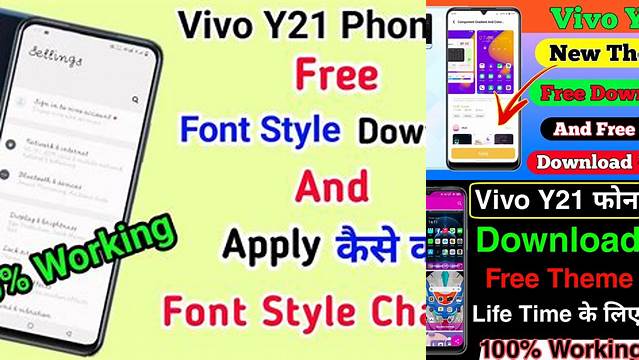
Get Free Fonts For Your Vivo Y21: Download & Customize!
Hey guys! Let's dive into the awesome world of customizing your Vivo Y21 with some cool new fonts. If you're like me, you probably get a little bored with the default font after a while. Luckily, it's super easy to jazz things up and find a vivo y21 font style free download that perfectly matches your vibe. We're going to cover everything – from where to snag those fonts to how to install them and make your phone look totally unique. Ready to make your Vivo Y21 stand out? Let's get started!
1. Unveiling the World of Vivo Y21 Font Customization
So, first things first: why bother with font customization? Well, for starters, it's all about personal expression. Your phone is an extension of you, right? And the font is a huge part of that visual identity. When you find a vivo y21 font style free download that you love, it changes the whole feel of your device. It's like giving your phone a fresh new wardrobe! Plus, it can make your device more enjoyable to use. Imagine reading your texts or browsing the web with a font that's easy on the eyes and reflects your style. It can really transform your everyday experience with your Vivo Y21. Beyond aesthetics, font customization can also improve readability. Some fonts are just inherently easier to read than others, and this can be especially helpful for users with visual impairments. By choosing the right font, you can make your device more accessible and user-friendly. The best part? The ability to find a vivo y21 font style free download opens up a world of possibilities, allowing you to explore different styles, sizes, and weights to achieve your desired look. There are so many fonts available, from sleek and modern to quirky and playful. You can find fonts that reflect your personality, interests, and even your mood. It's all about creating a digital space that truly feels like your own, making your Vivo Y21 a personalized extension of you. This level of personalization isn't just about the font itself; it extends to how you interact with your phone. A well-chosen font enhances the overall user experience, making it feel more intuitive and enjoyable. Furthermore, regular font updates can prevent the feeling of monotony that can arise from consistent viewing of the same design. So, are you ready to dive into a vivo y21 font style free download?
3.1 Using Third-Party Apps for Font Installation
One of the most common and easiest ways to install that vivo y21 font style free download is by using a third-party app. There are tons of font customization apps available in the Google Play Store, and they're generally pretty user-friendly. These apps usually provide a library of fonts that you can download and apply directly to your Vivo Y21. To get started, search for a font app in the Google Play Store. Look for apps with good reviews and ratings. Once you've found an app, download and install it. Then, open the app and follow the instructions. Most apps will guide you through the process step-by-step. The app will usually ask you for permission to access certain settings on your phone. Make sure you grant the app the necessary permissions so it can change the font. You'll likely be able to browse through a selection of fonts within the app. When you find a font you like, you can usually download and install it directly from the app. After installing the font, the app might ask you to apply it. This typically involves selecting the font from the app's settings or your phone's display settings. After installing and applying the font from the app, you might need to restart your Vivo Y21 for the changes to take effect. This ensures that the font is correctly applied to your device. Note that the exact steps will vary depending on the app you choose, so always follow the instructions provided by the app. However, using a third-party app to install a vivo y21 font style free download is one of the easiest ways.
3.2 Custom Launchers: An Alternative Approach
Besides third-party apps, you could also try using a custom launcher to customize your font. Custom launchers are apps that replace your phone's default home screen and offer a wide range of customization options, including font customization. Popular custom launchers, like Nova Launcher, often have built-in font settings. This means that once you've downloaded a vivo y21 font style free download, you can change your phone's font directly within the launcher's settings. Using a custom launcher gives you even more control over how your phone looks and feels. Before you start, download and install a custom launcher from the Google Play Store. After installing, set the launcher as your default. Then, open the launcher's settings and look for font customization options. These settings will allow you to choose from a list of fonts installed on your device. The font settings might allow you to browse fonts available on your phone, or you might need to install a font manually. To install a vivo y21 font style free download, you might need to copy the font files to a specific folder on your phone. Check the launcher's instructions for details. Once you've selected a font, apply the changes. You may need to restart your phone for the new font to take effect. After applying, you will notice the font on your device immediately. Custom launchers also offer a wealth of other customization options, such as icon packs, themes, and home screen layouts, allowing you to create a unique look and feel. This means that the custom launchers will help you a lot.
6. Enhancing Your Vivo Y21 Experience with Unique Fonts
By now, you're probably pumped to customize your Vivo Y21 with some awesome fonts! Remember, choosing the right font is a super fun way to personalize your device and make it your own. Think about your personal style. Do you want something modern, classic, or quirky? There are tons of fonts to choose from! And most of all, don't be afraid to experiment! Try out different fonts and see what looks best on your screen. Have fun, and enjoy your new, personalized Vivo Y21!